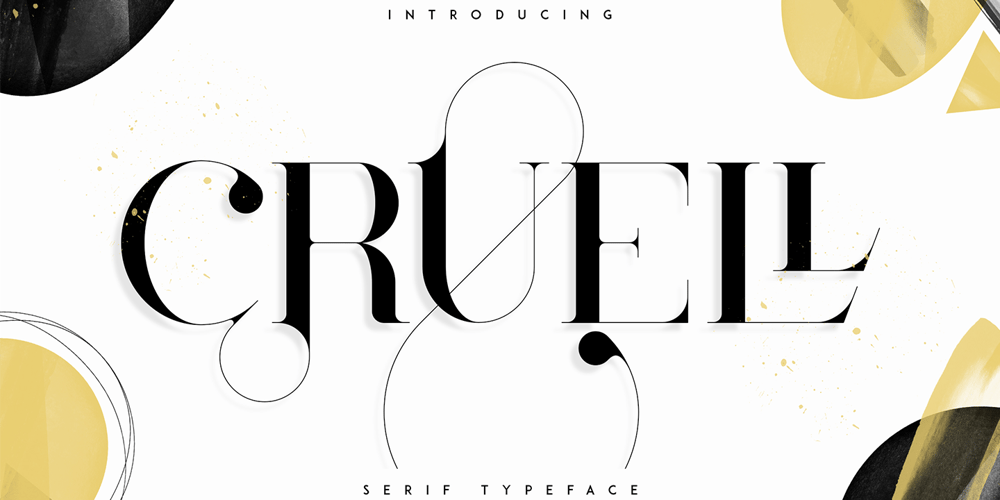
Cruell
Cruell font
Cruell Font Family was designed by Vladimir Fedotov, Plamen Petrov and published by VP Creative Shop. Cruell contains 5 styles and family package options. Introducing Cruell Serif Typeface – 5 fontsCruell is clean, luxury typeface with 5 fonts loaded with ligature glyphs, alternates and multilingual support to enchant your next project. Very versatile fonts that works great in large and small sizes.Cruell is perfect for branding projects, home-ware designs, product packaging, magazine headers – or simply as a stylish text overlay to any background image. Uppercase, numeral, punctuation & Symbol Light Regular Medium Bold Black ligature glyphs alternates Multilingual support How to access alternate glyphs?To access alternate glyphs in Adobe InDesign or Illustrator, choose Window Type & Tables GlyphsIn Photoshop, choose Window Glyphs. In the panel that opens, click the Show menu and choose Alternates for Selection. Double-click an alternate’s thumbnail to swap them out.Feel free to contact me if you have any questions!Mock ups and backgrounds used are not included.Thank you! Enjoy!